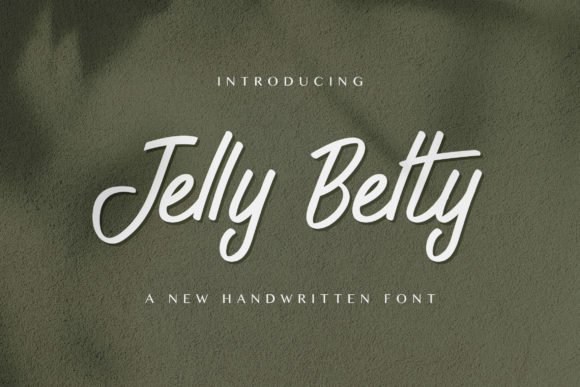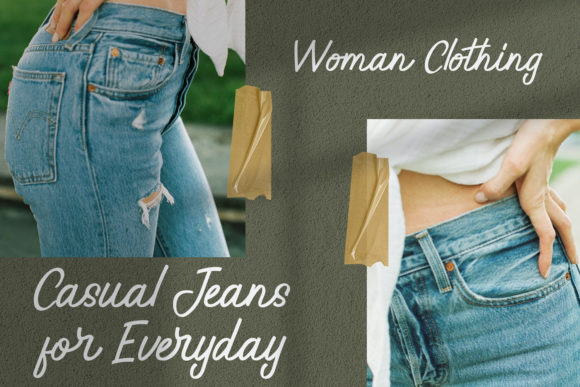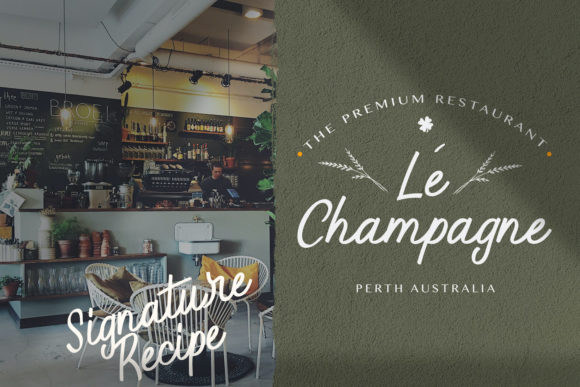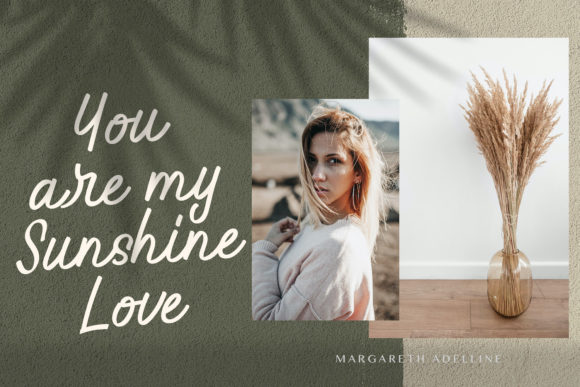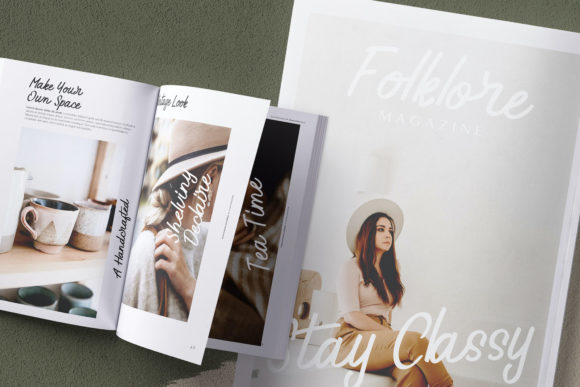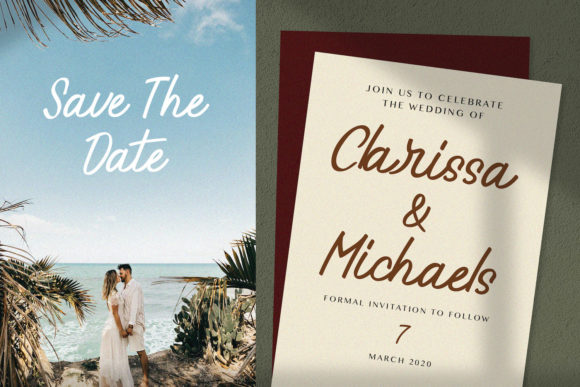
The Perfect Penstroke: Unleashing Creativity with Jelly Belty Font
Have you ever sat at your desk, staring at a blank page, waiting for that elusive spark of inspiration to strike? You know, the moment when the words flow effortlessly and your design comes alive? It’s a feeling that’s hard to replicate, but with the right tools, it’s definitely within reach. For designers, finding that perfect font can make all the difference in bringing their vision to life.
Enter Jelly Belty Font, a delicate and elegant handwritten font that’s sure to capture the essence of your creative ideas. With its beautiful and well-balanced characters, Jelly Belty Font is the perfect addition to any design project. Whether you’re working on a wedding invitation, a children’s book, or a social media campaign, this font is sure to add a touch of sophistication and whimsy to your work.
Jelly Belty Font Key Features
- Font Family: Jelly Belty Font comes in a single font family with multiple styles, including Regular, Italic, Bold, and Bold Italic.
- Character Set: The font includes a wide range of characters, including Latin, Cyrillic, and Greek alphabets, as well as punctuation and symbols.
- Resolution: Designed for high-resolution displays, with a recommended resolution of 300 DPI or higher for optimal readability.
- Size: The font is available in various font sizes, ranging from 8 to 72 points, making it suitable for a wide range of applications, from body text to headings.
- Unique Characteristics: Jelly Belty Font features a unique, hand-drawn design with a playful and whimsical feel, making it perfect for creative projects and designs that require a touch of personality.
Jelly Belty Font Review
I recently had the chance to work with the Jelly Belty Font, and here’s my honest review.
- Unique and playful design: Jelly Belty Font is a great choice for projects that require a fun and whimsical touch.
- High legibility: Despite its playful nature, the font is surprisingly easy to read, making it suitable for body text and headings.
- Good support for various languages: The font includes a wide range of languages, including Cyrillic and Greek scripts.
- Thin weight issues: The font’s thin weights can be prone to pixelation, which may affect its appearance at smaller sizes.
- Limited bold weight options: While the font has several bold weights, they can feel a bit inconsistent, which may impact its overall impact.
- Not ideal for large body text: Due to its playful design, Jelly Belty Font may not be the best choice for large blocks of body text.
Jelly Belty Font is a solid choice for projects that require a unique and playful touch. While it has some limitations, its strengths make it a great option for designers looking to add some personality to their designs.
The Jelly Belty Font is perfect for creating playful and whimsical designs. It’s commonly used for:
- Children’s products and packaging.
- Party invitations and decorations.
Remember to use the Jelly Belty Font in moderation, as it can be overwhelming if used too extensively.